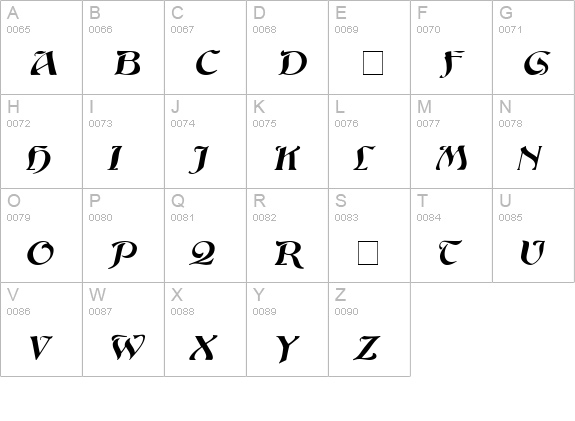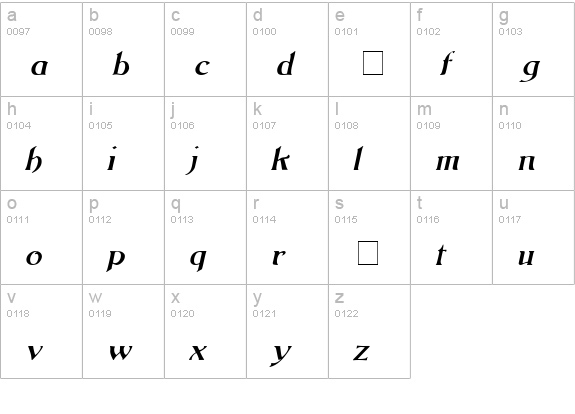
Guildenstern Oblique Font Details
Guildenstern Oblique is a distinctive, italic variant in the Guildenstern typeface family \xE2\x80\x94 well suited to design and typography projects.
Guildenstern Oblique font is a striking and modern typeface that exudes elegance and sophistication. With its sleek lines and unique letterforms, this font adds a touch of style to any design project. The slanted style of the letters gives Guildenstern Oblique a dynamic and energetic feel, making it perfect for creating eye-catching headlines or adding a contemporary twist to your text. What sets Guildenstern Oblique font apart is not only its aesthetic appeal but also its versatility. Whether you're designing a poster, logo, website, or any other creative project, this font will help you achieve a polished and professional look. Its clean and easy-to-read design ensures that your message will always be clear and impactful. And the best part? Guildenstern Oblique font is completely free to download at FontsMarket.com. So go ahead and elevate your designs with this superb font without breaking the bank. Download Guildenstern Oblique today and bring a touch of modern sophistication to your projects!